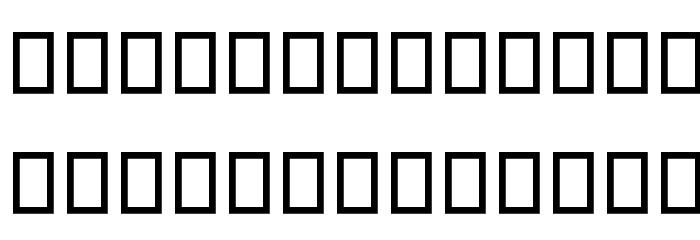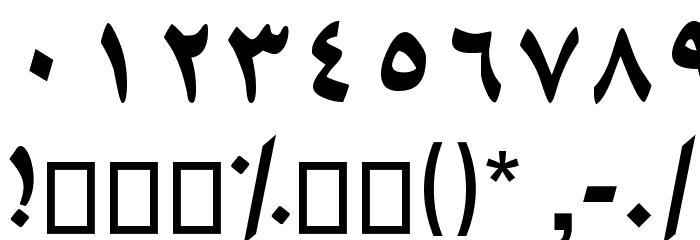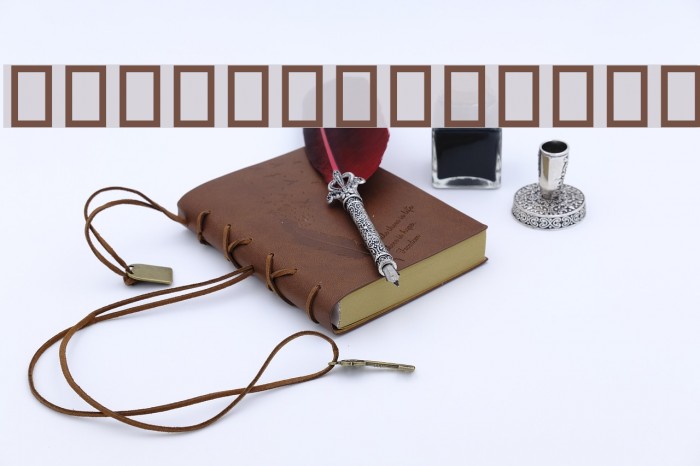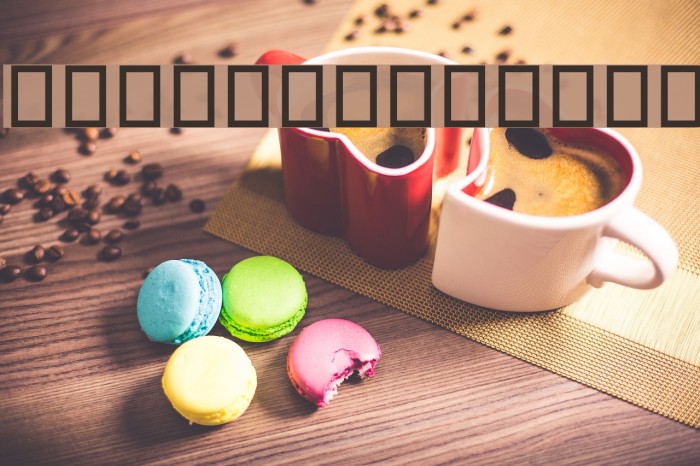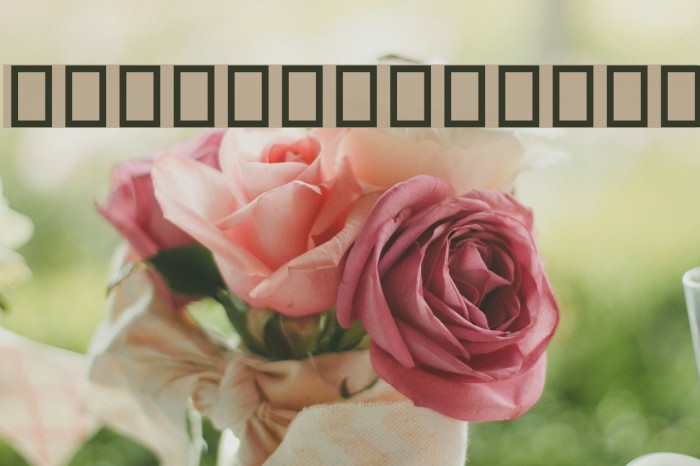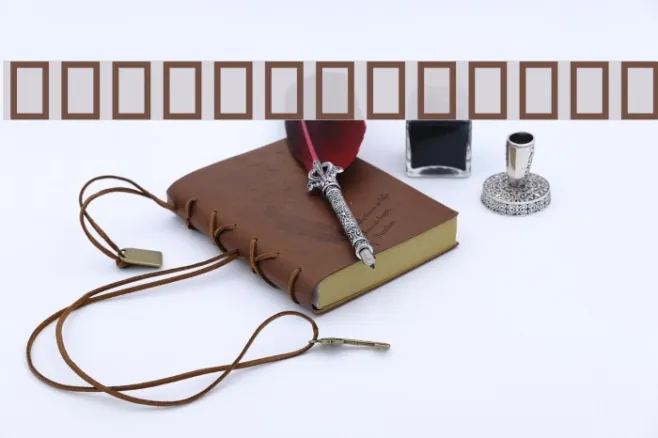
Hamaasah I Font
This font features a distinctive and artistic style, characterized by fluid and dynamic strokes that evoke a sense of movement and elegance. The numerals are particularly unique, with each digit displaying a playful yet sophisticated flair. The special characters maintain this artistic theme, adding a touch of creativity to punctuation marks. Overall, the font exudes a sense of modernity while retaining a hint of traditional calligraphic influences, making it versatile for various design applications.
A fluid and artistic font with dynamic strokes and a modern calligraphic influence.
- Proposed Projects: Ideal for creative projects such as branding, invitations, posters, and artistic publications.
- Use Case: Logos, Artistic publications, Invitations